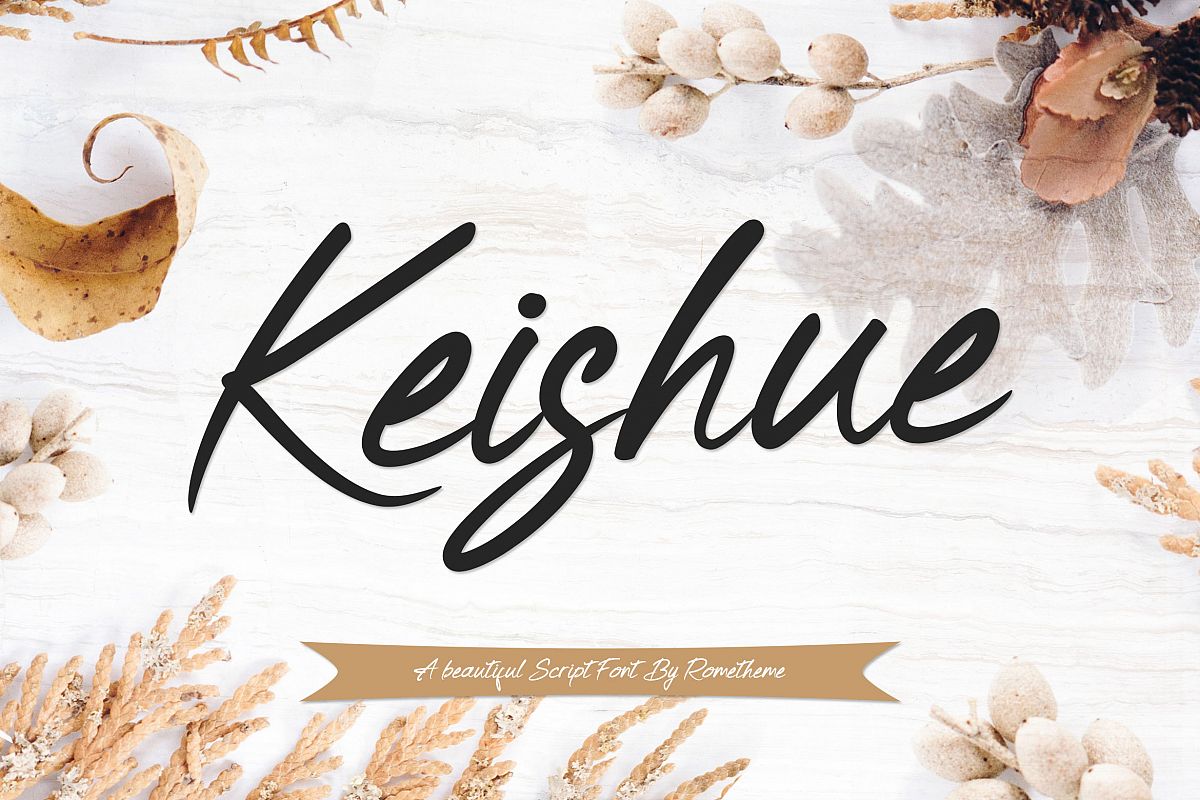
Keishue
Keishue-Regular
Keishue is a modern handwritten typeface, beautiful and luxurious. this font looks elegant, classy, readable, stylish, catchy and easy to use.
• Basic Latin A-Z and a-z
• Symbols